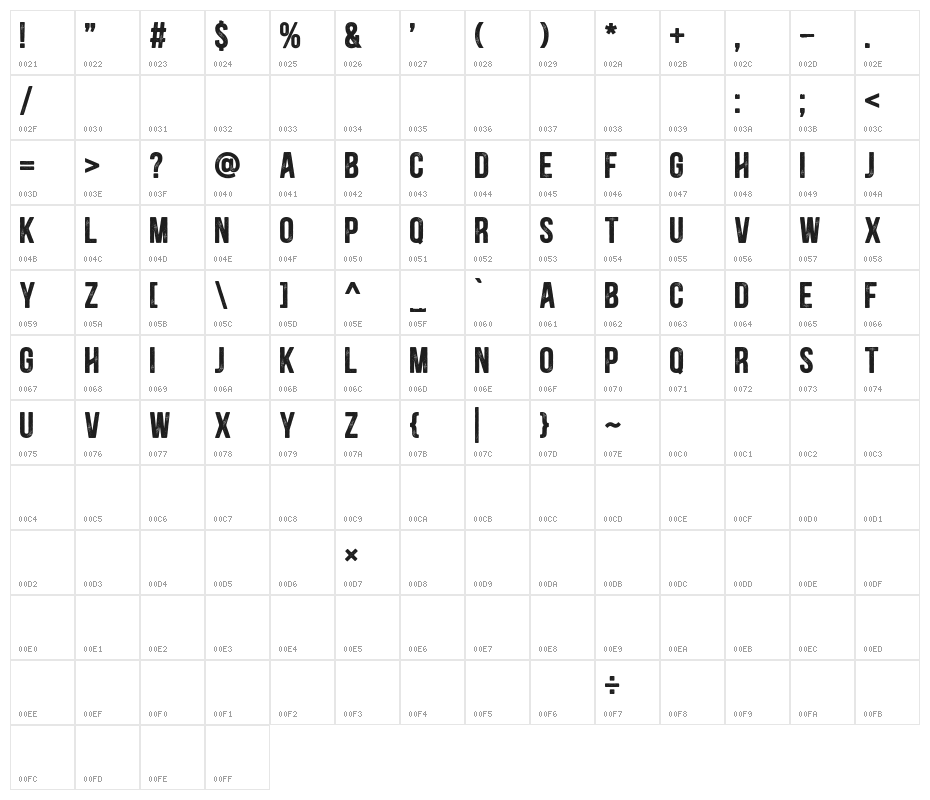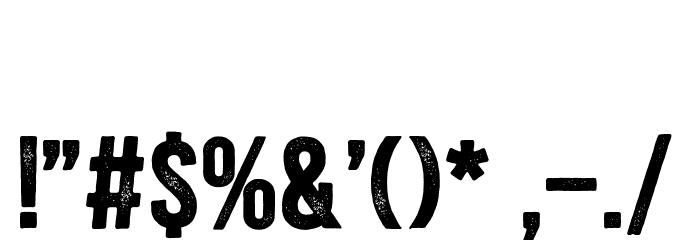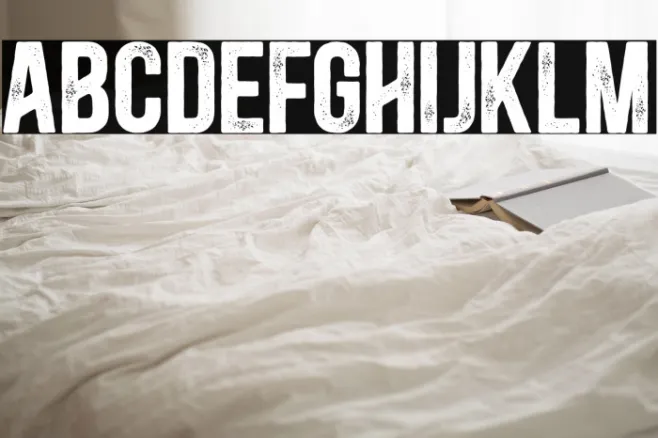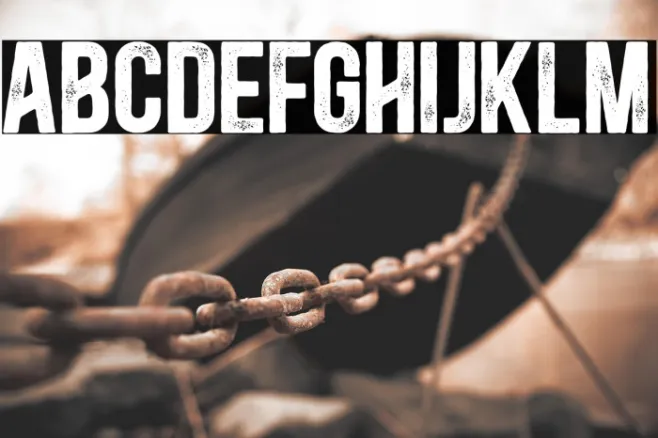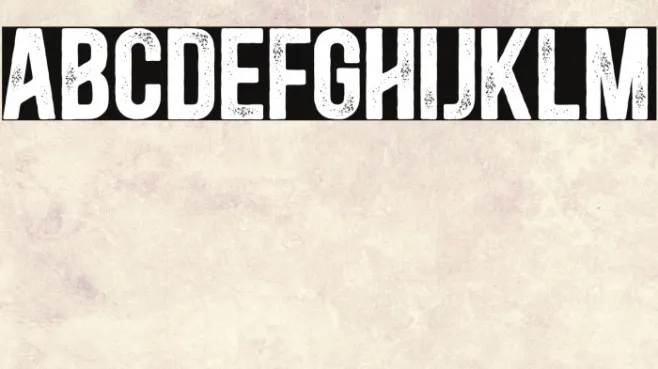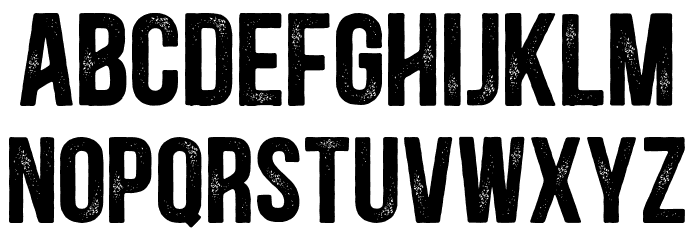
BlacksideRust-Bold Font
This font features a bold, distressed style that gives it a rugged and vintage appearance. The characters are thick and sturdy, with a textured effect that adds a sense of depth and character. The uppercase letters are uniform in height, while the special characters maintain the same boldness and texture. This font's unique style makes it stand out, perfect for projects that require a strong and impactful visual presence. The distressed texture suggests a hand-crafted or worn look, ideal for designs that aim to convey authenticity or a retro vibe.
| Proposed Projects | Ideal for branding, posters, album covers, and any design needing a strong, vintage aesthetic. |